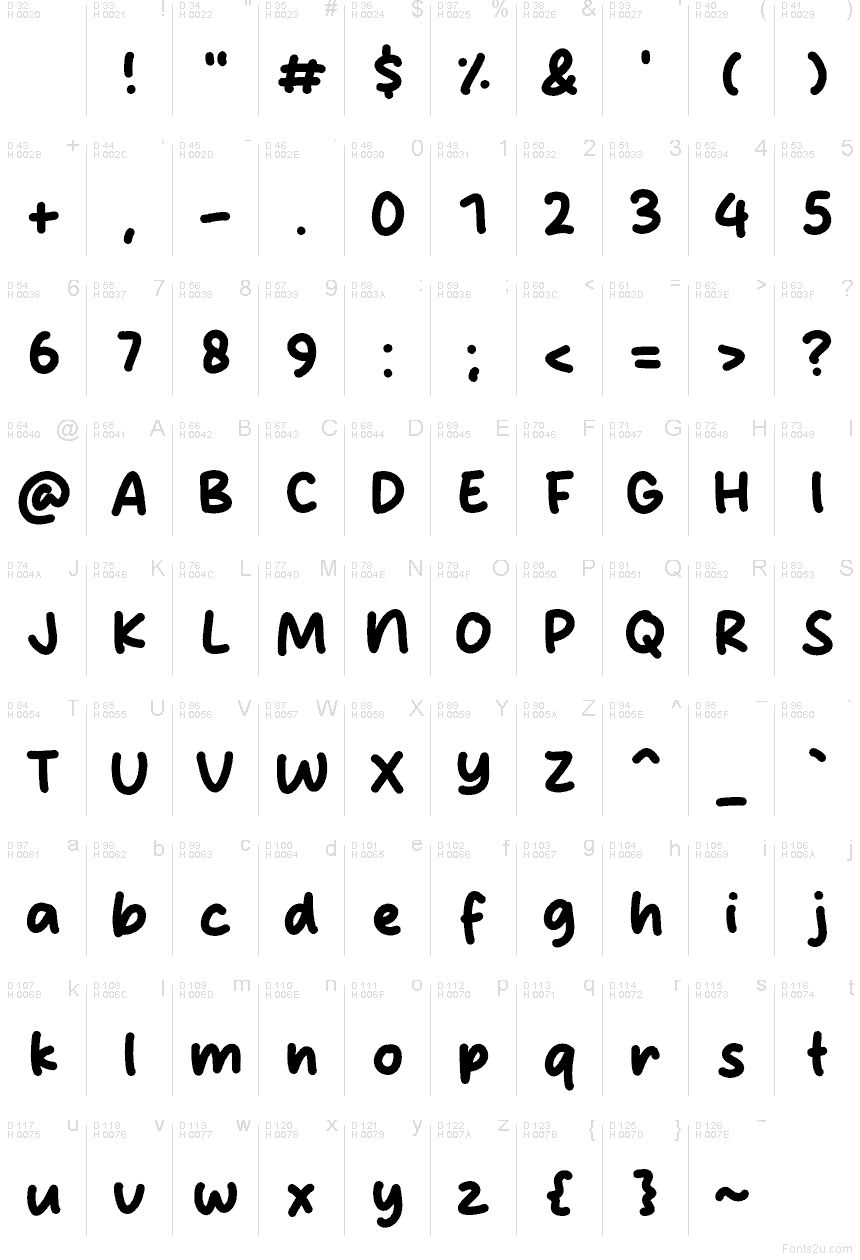
Malvian
Malvian font by MJType is a free handwritten font that solves a familiar issue with casual scripts: they’re often charming but hard to read. Here, thick, inky strokes and rounded forms create a warm, handwritten vibe that still feels clean and steady on the page. The letters sit close but not cramped, giving Malvian an easy, bouncy rhythm that looks inviting without turning messy or childish.
Using Malvian, you can add personality to social media graphics, kids’ products, friendly branding, posters, stickers, and packaging where you need bold handwriting that stays legible at a glance. This free font really shines in larger titles or short phrases; pair it with a simple sans-serif for body text to keep layouts balanced and readable.